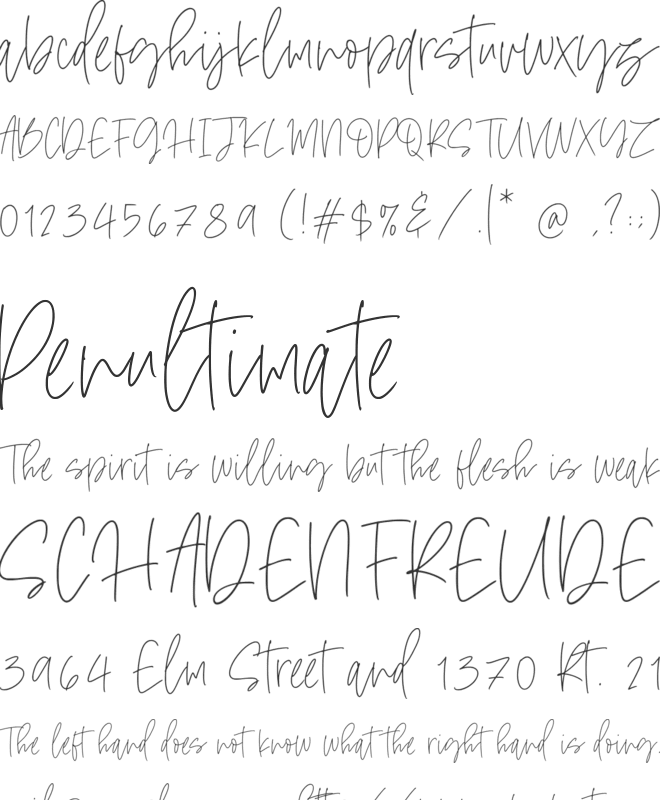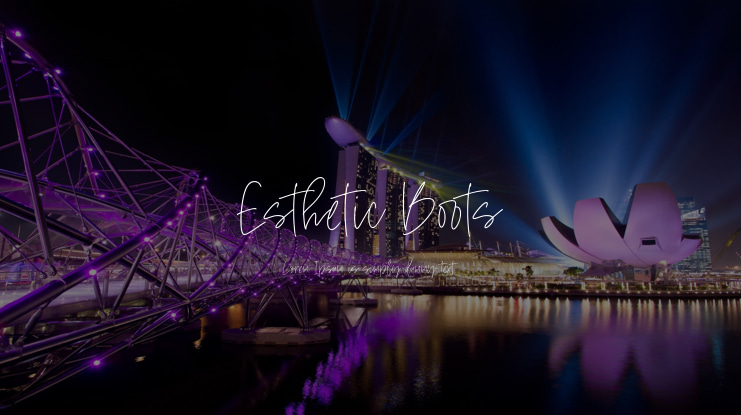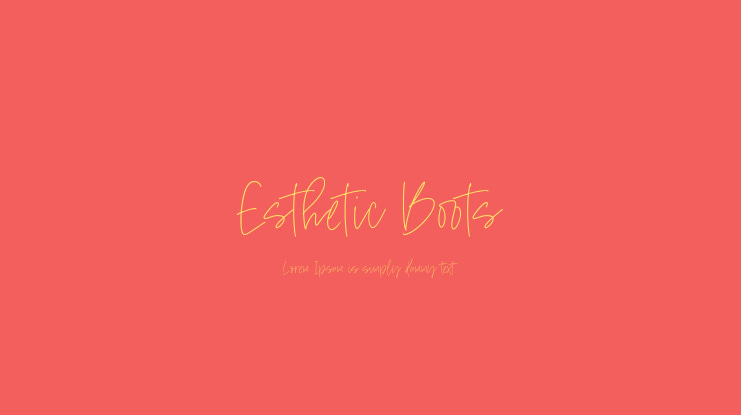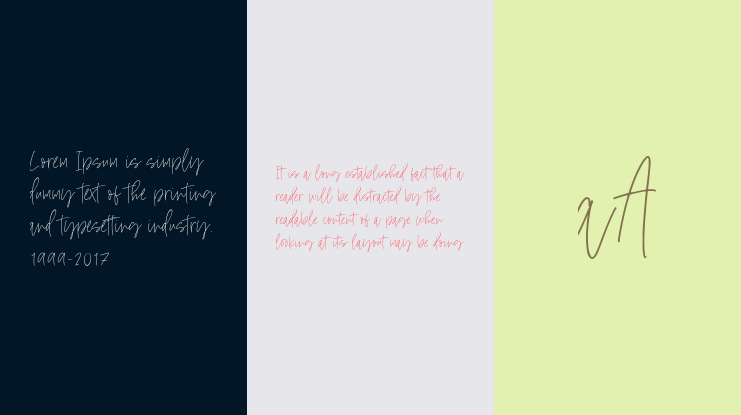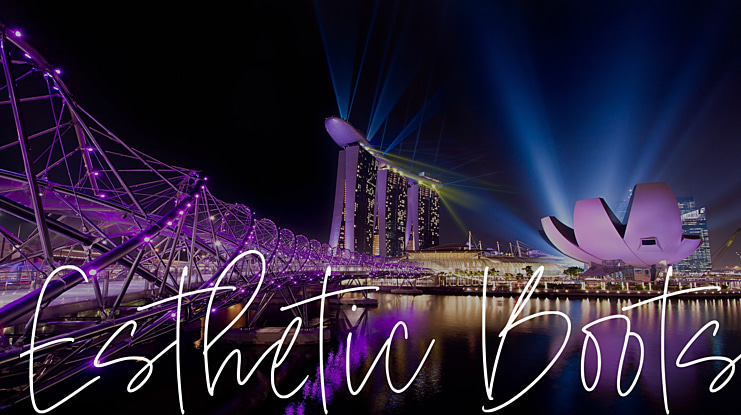
Esthetic Boots Font
Introducing by Balpirick Studio.
Esthetic Boots - a modern handwritten that's clean, elegant and perfect for a range of design projects! With its smooth, effortless lines and understated sophistication, this font is the perfect choice for those who want a modern look that's still timeless in its appeal.
Crafted with precision and care, this font is incredibly versatile and can be used for a range of design projects, including logos, branding, invitations, packaging, and more. With its simple yet refined aesthetic, it's sure to make a lasting impression on anyone who sees it.